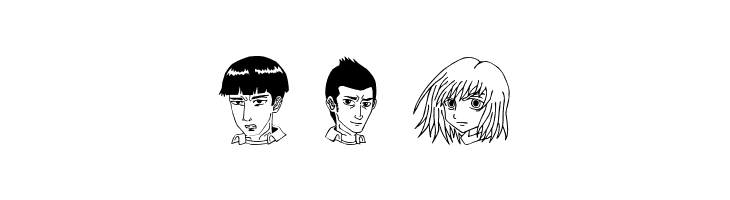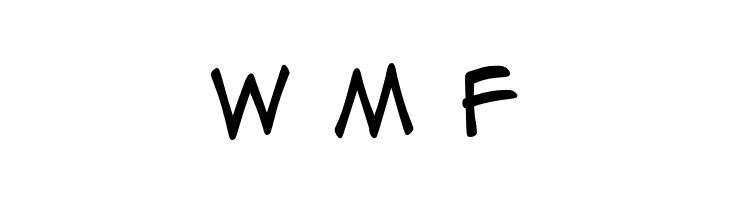
A bold, handwritten-style font with a playful and dynamic appearance.
A bold, playful font with rounded, italicized letterforms.
Bold, decorative font using anime character faces as glyphs.
A playful, bold font with rounded, hand-drawn letterforms.
A bold, playful handwritten font with a dynamic and energetic style.
A playful, italicized handwritten font with smooth, bold strokes.
A bold, playful font with rounded, cartoon-like characters and a casual, handwritten style.
A bold, italicized font with a playful and dynamic style.
A playful, italicized handwritten font with smooth, rounded strokes.
A playful, handwritten-style font with rounded, informal letterforms.